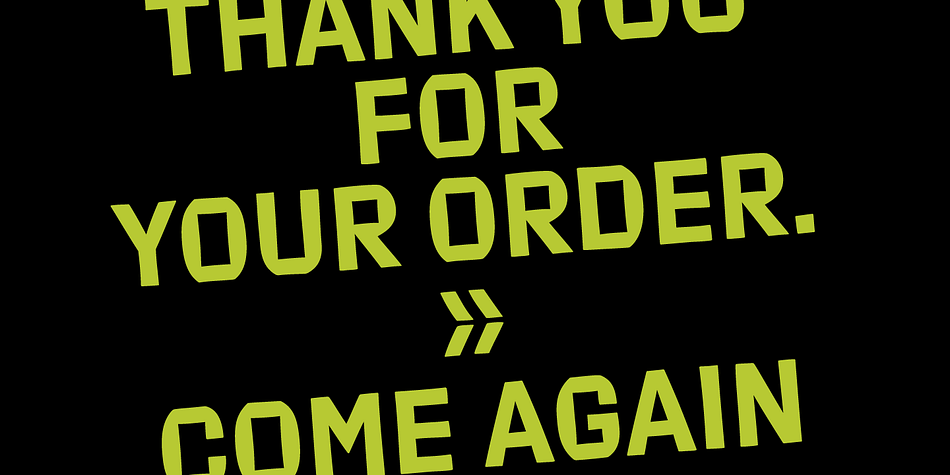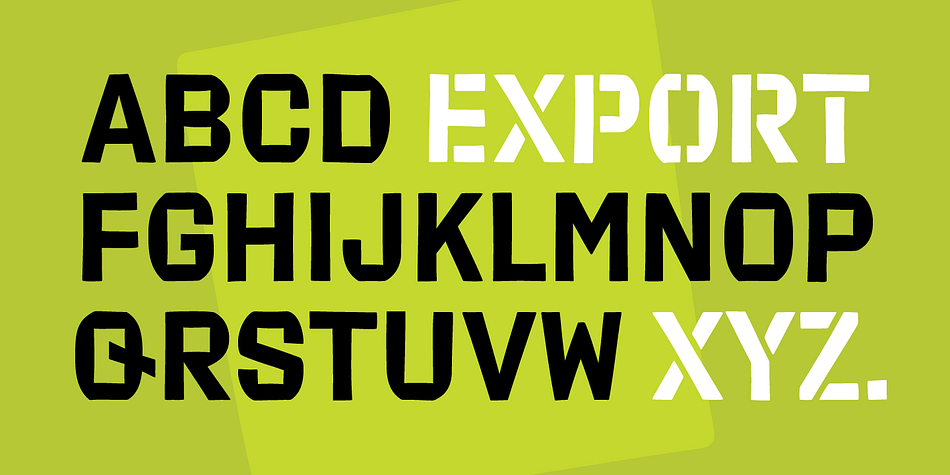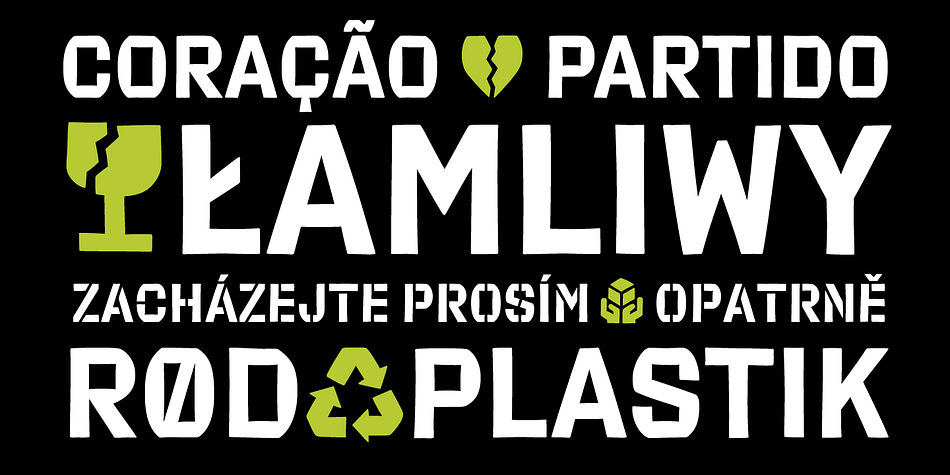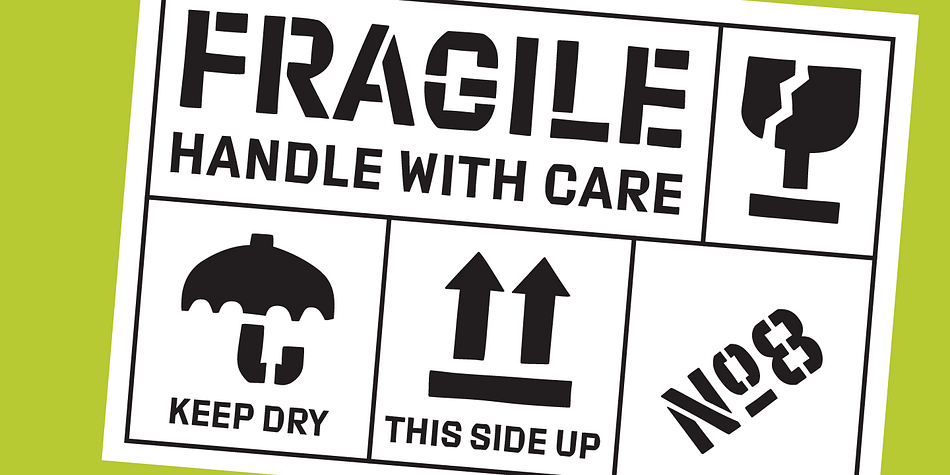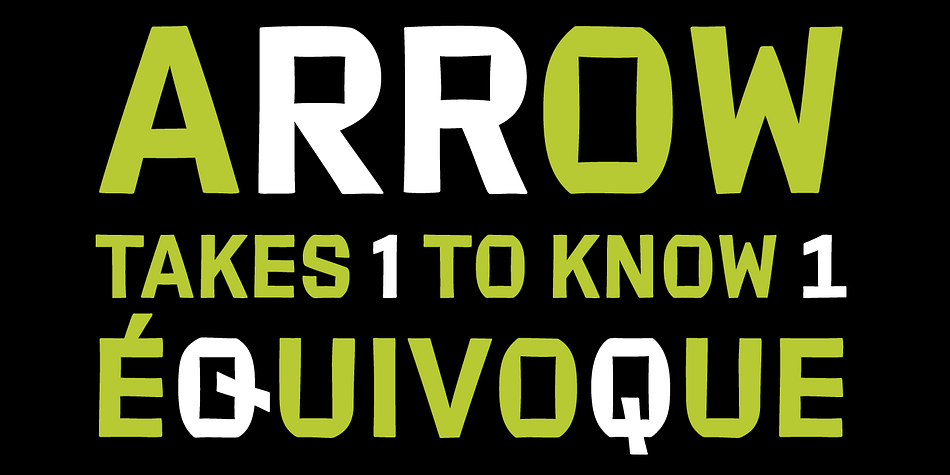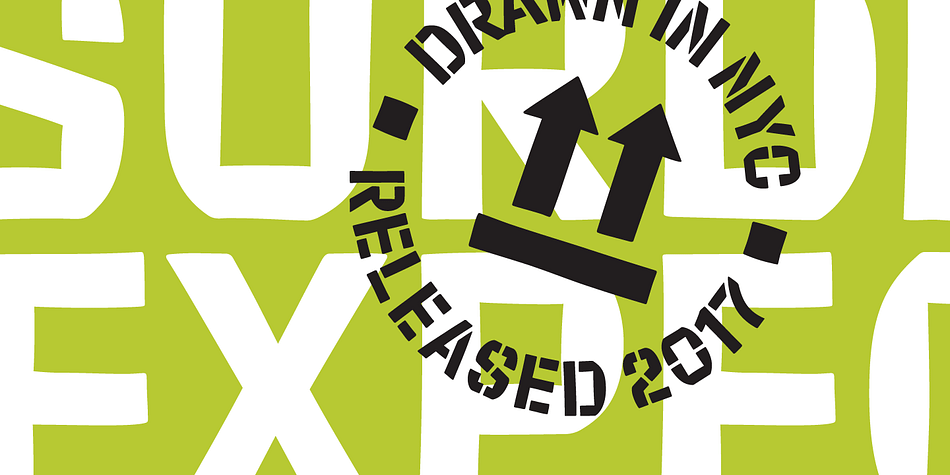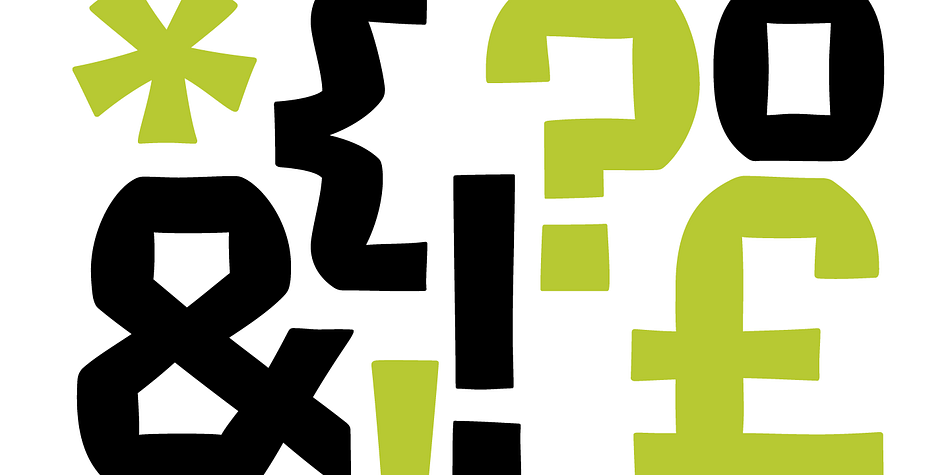
Designed by Jesse Ragan, Export is a display sans and stencil font family. This typeface has two styles and was published by XYZ Type.
While walking around New York City one day, Jesse Ragan happened upon a string of unconventional letters bluntly printed on the side of a cardboard shipping box from a hand-carved flexo plate. The letters’ original creator is unknown, but Jesse decided to pay homage to the unpretentious forms via an all-caps typeface, in Regular and Stencil versions, that preserves the brawn and bite of its analog inspiration.
A system of bulges and pinches underlies Export’s irreverent internal logic. Rough edges lend a soft finish to the face’s blocky heft. Eccentric shapes command attention when isolated, but an industrial rhythm takes hold in chunks of text.
Export Stencil turns the playful concept of the original on its side, with a network of breaks that are at once pragmatic and illogical. Although a collection of shipping caution symbols are enclosed, this is one durable package.
Styles | Display Sans, Stencil |
Designer | Jesse Ragan |